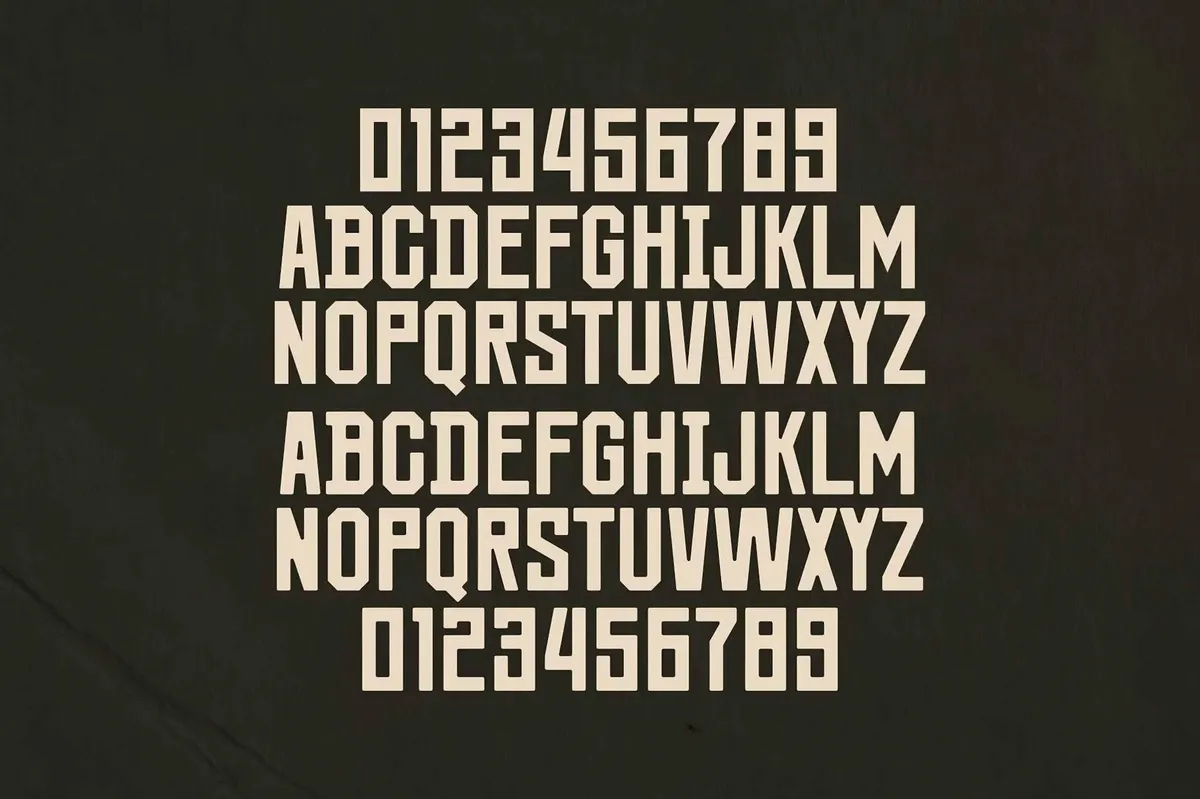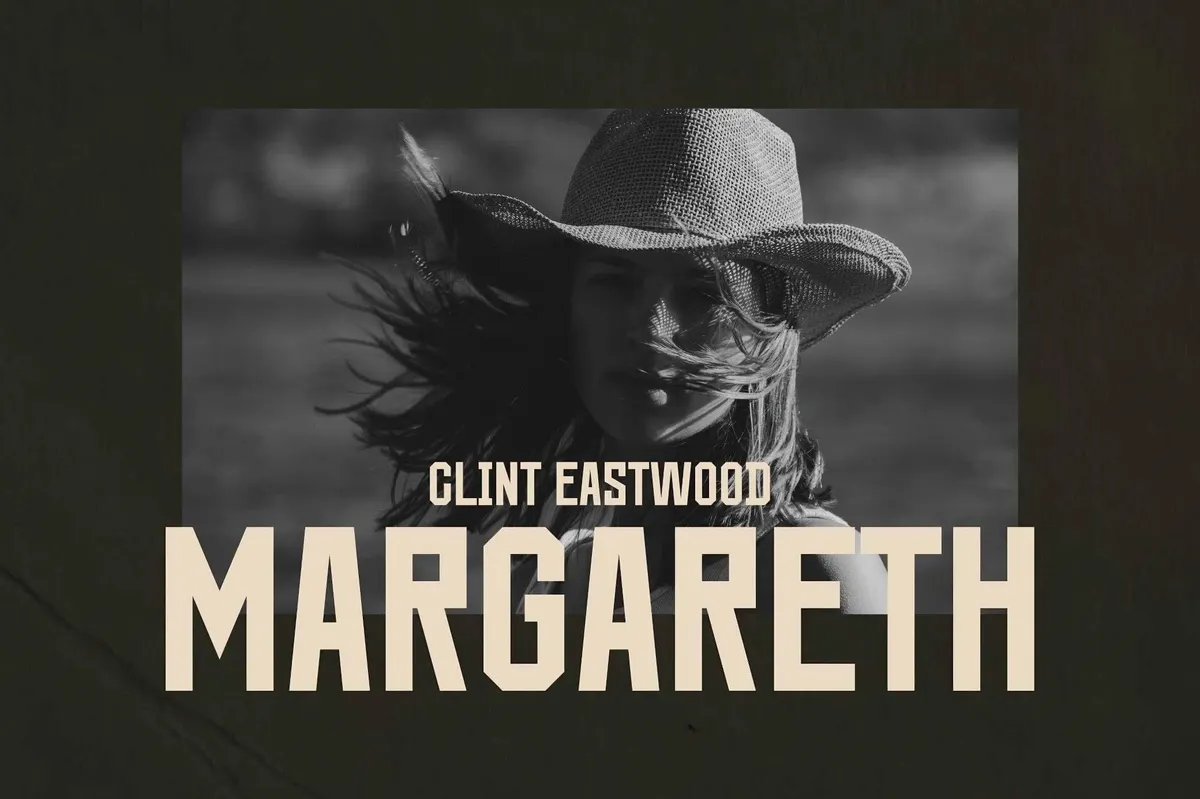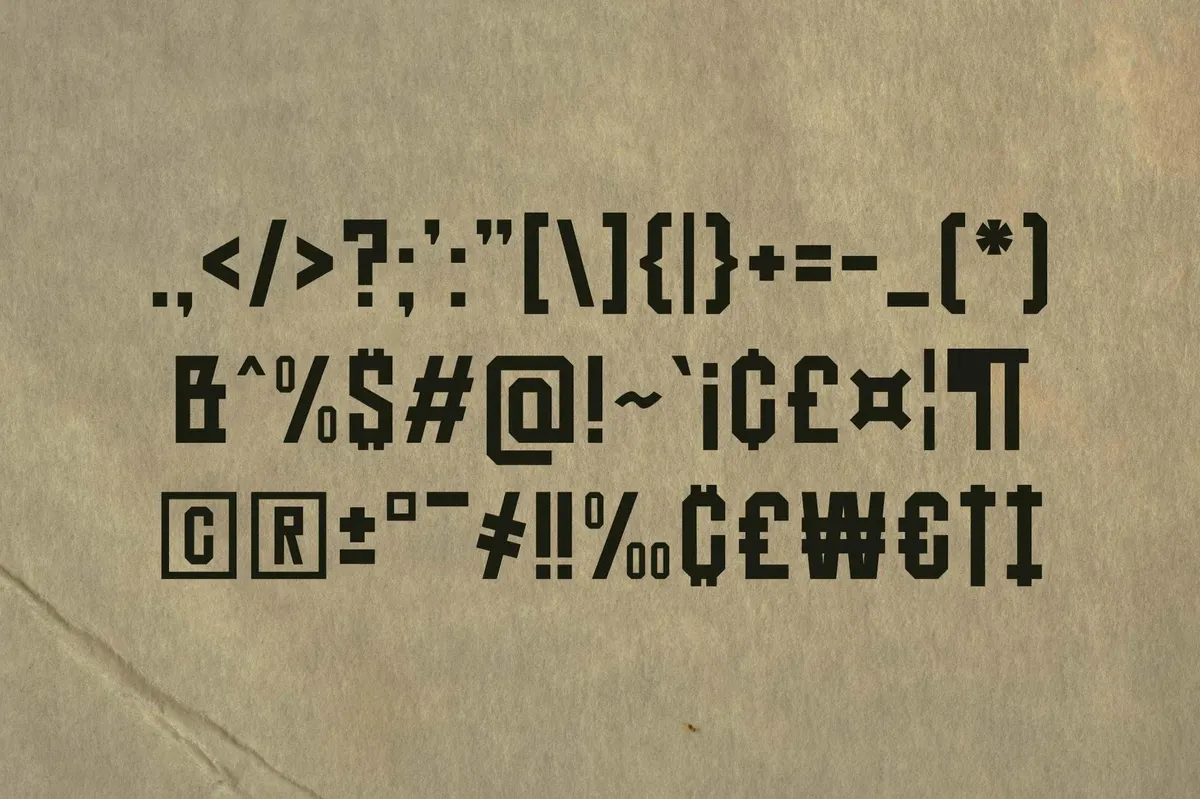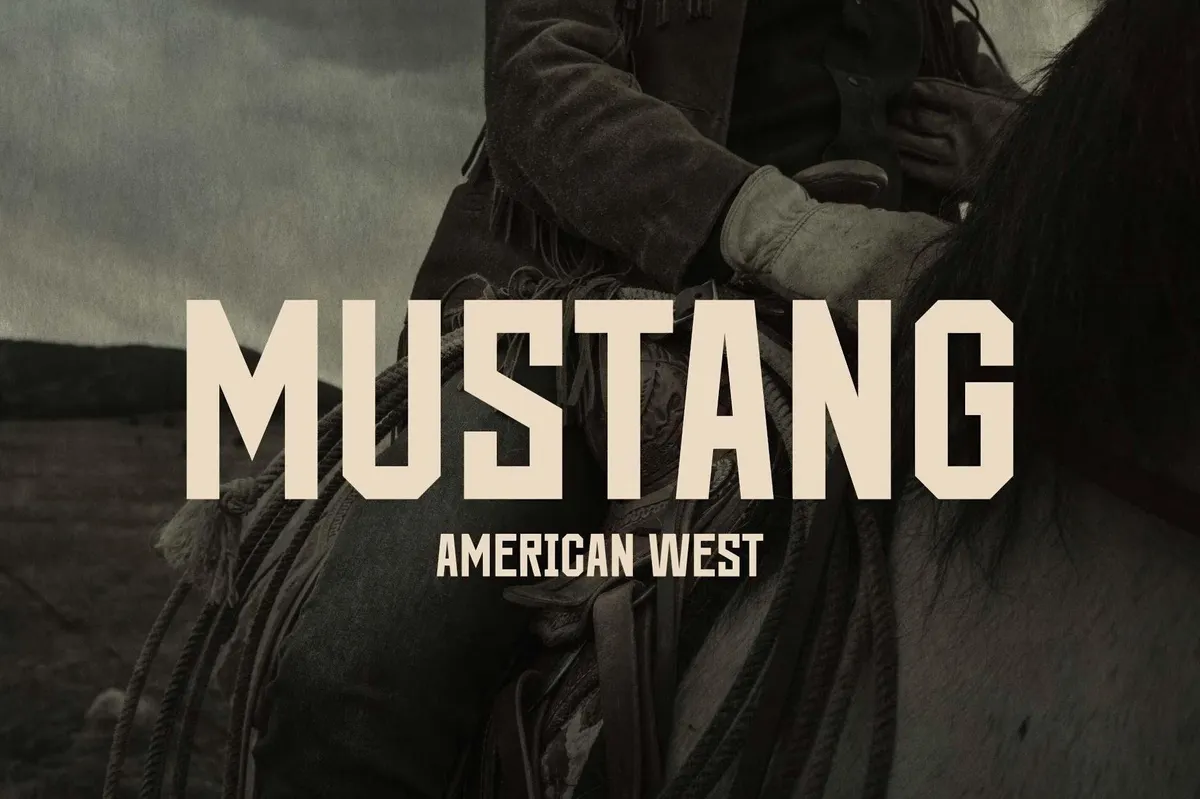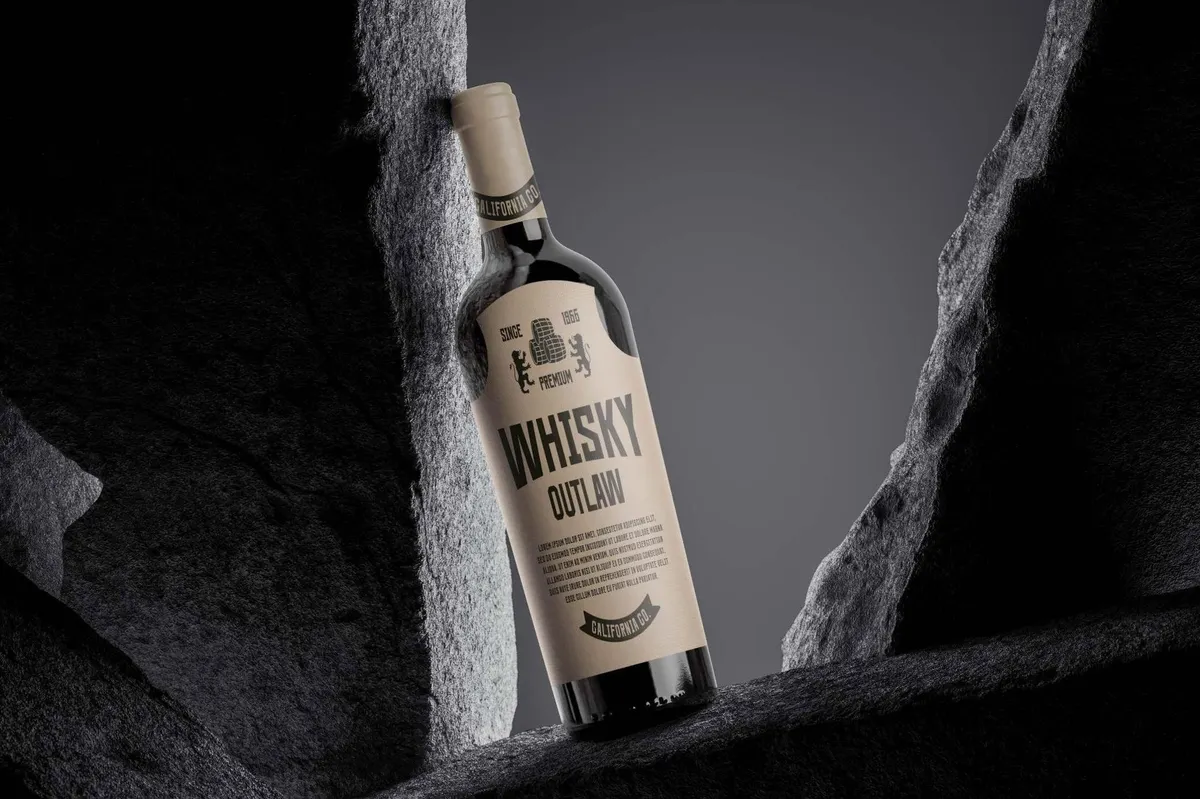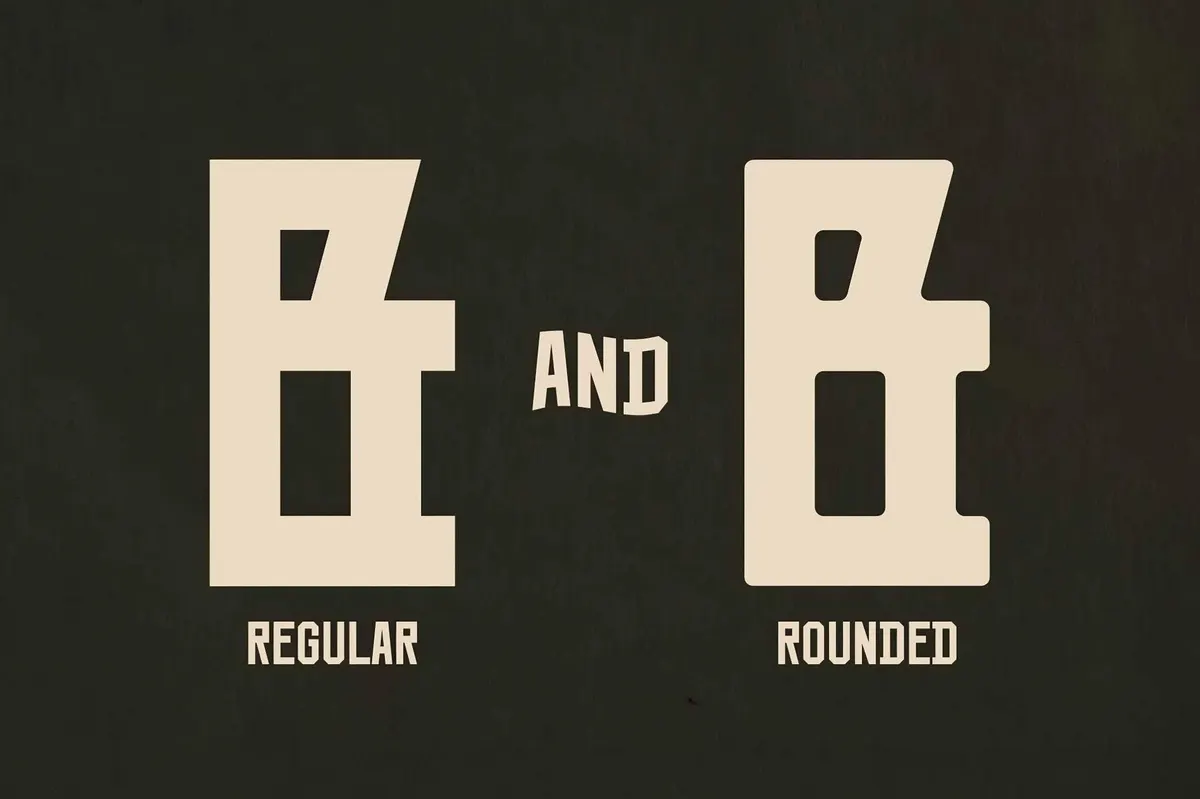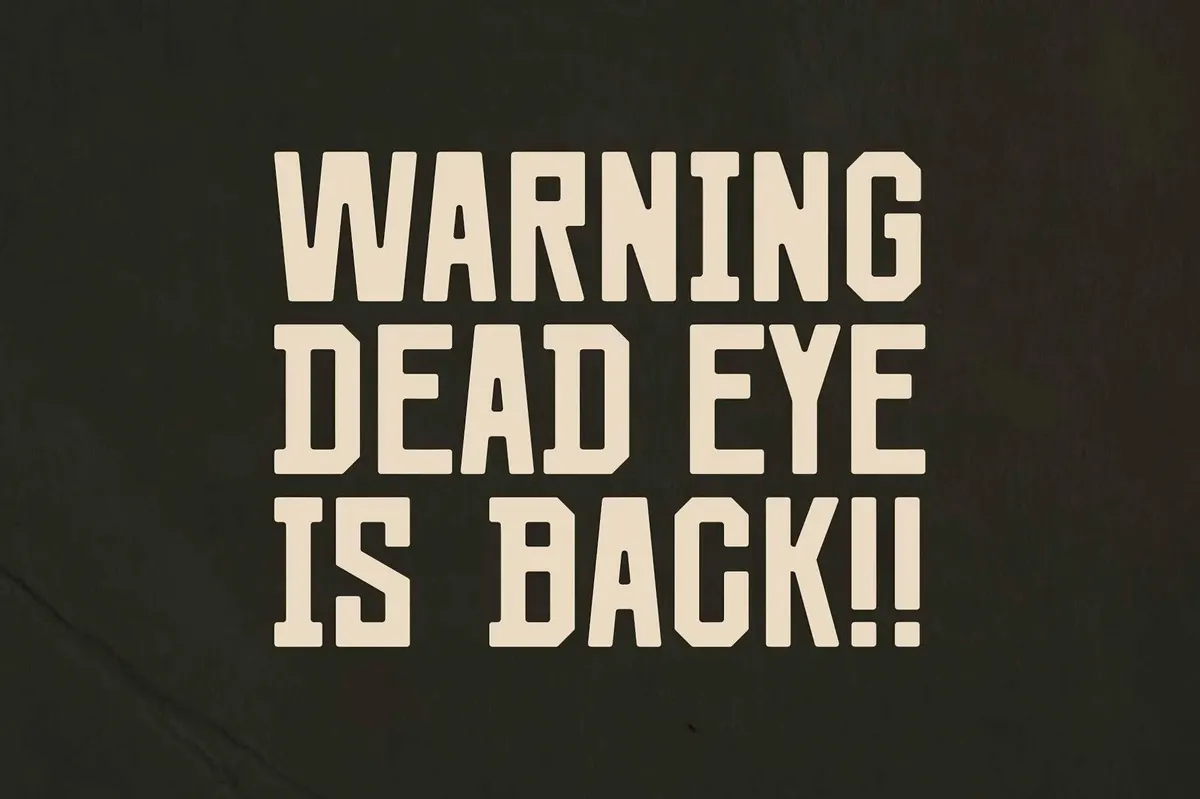
Dutch Morgan — Retro Western Font
Dutch Morgan
Dutch Morgan has a powerful, rugged character with sharp geometric shapes and bold lines. Its strict, angular structure gives it an industrial touch, reminding of classic typography styles used in old advertising signs, billboards of Western movies, and vintage product packaging.
Its balanced letter height makes it ideal for headlines, logos, and posters for projects related to retro aesthetics or brutal minimalism. Dutch Morgan comes in two adaptable styles: Regular and Rounded. The Regular version features crisp, sharp lines, while the Rounded variant offers a softer look with smooth, curved corners. Each style is all-caps, available in OTF and TTF formats, and features numerals, punctuation, and multilingual characters.